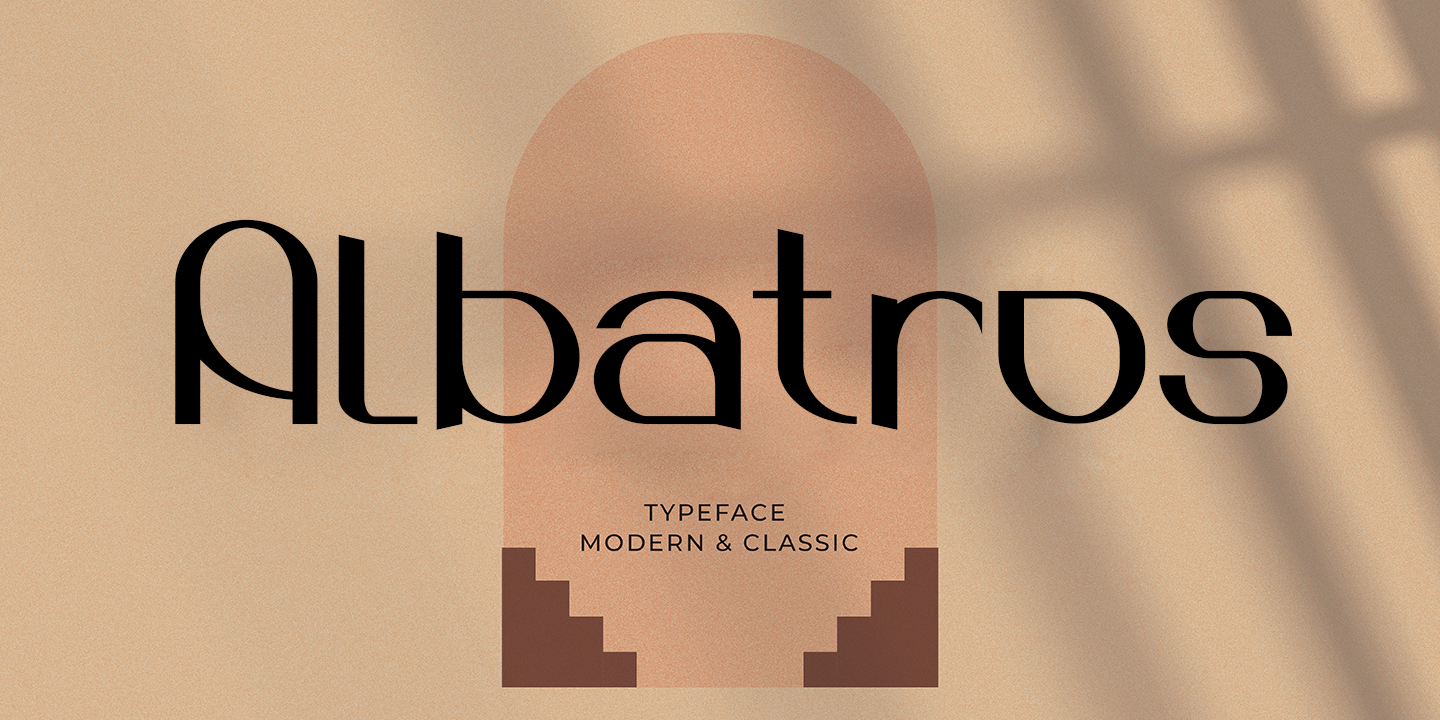
The Albatros Font is an excellent choice for designs that aim for a bold, distinctive, and often nautical or adventurous aesthetic. Imagine it gracing the signage of a seaside restaurant, adding a powerful visual punch to outdoor adventure branding, or bringing a robust, classic feel to historical reproductions. It's also perfectly suited for maritime-themed events, strong headlines in travel publications, artisanal product labels, and any project where you want to convey a sense of exploration, strength, and timeless character. Its often sturdy forms and confident presence make it ideal for conveying reliability and a storied past.
What makes the Albatros Font so exciting is its ability to instantly evoke a sense of grandeur and enduring quality. It frequently features strong, well-defined letterforms that might have subtle serifs or unique cuts, reminiscent of traditional craftsmanship or vintage maritime charts. This font has a powerful and self-assured personality that can instantly elevate your design, making it feel both established and remarkably adventurous. It’s designed to capture attention with its distinctive charm, ensuring your message is not just seen, but resonates with a sense of enduring strength and exploration.
The Albatros Font family typically might include a range of weights, from a solid regular to a heavy, commanding bold, providing versatile options for different levels of emphasis. Some families might also offer stylistic alternates or unique ligatures that enhance its traditional or adventurous aesthetic. These variations empower designers to create a truly commanding and memorable display, ensuring the Albatros Font Free Download can adapt to a wide array of projects while maintaining its signature, timeless charm.